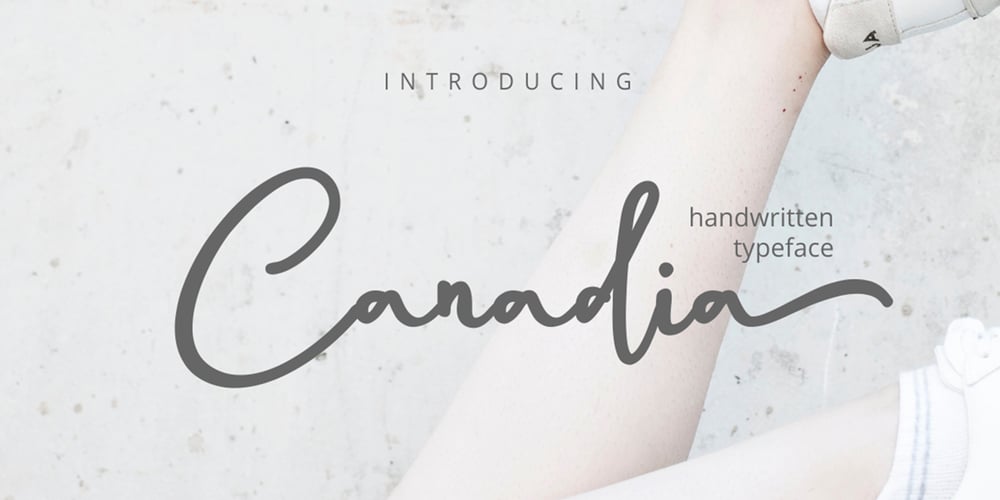
Canadia Font Family was designed by Rachma and published by BonjourType. Canadia contains 1 styles and family package options. Canadia is a cursive and lovely handwritten font. This versatile script font has a wide spectrum of applications ranging from greeting cards to headlines and is guaranteed to add a romantic feel to your next project.